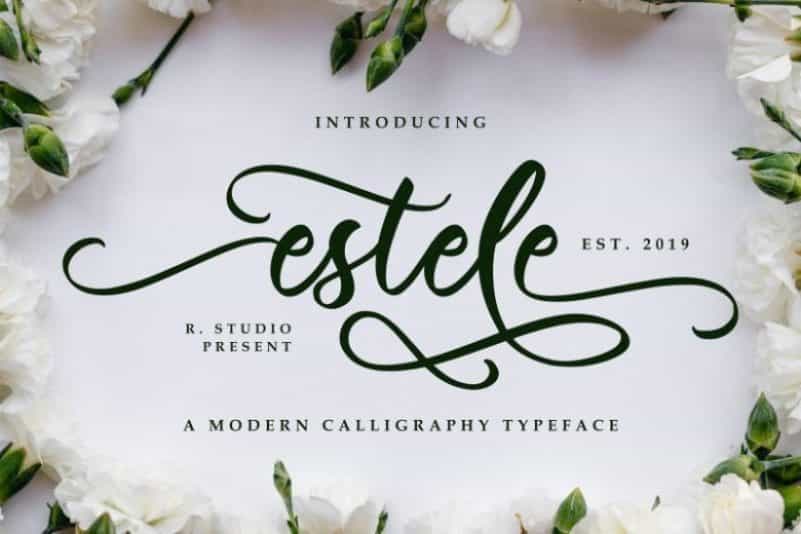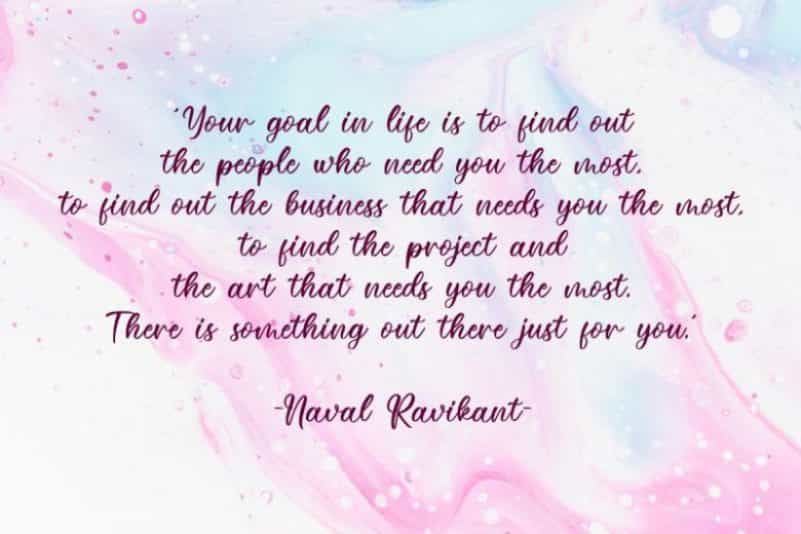
Estele is a calligraphic script font that includes beautiful alternate characters. a blend of copperplate calligraphy and hand lettering style. Stylist and simple. Estele is an attractive typeface, smooth, clean, feminine, sensual, glamorous, simple and highly legible.